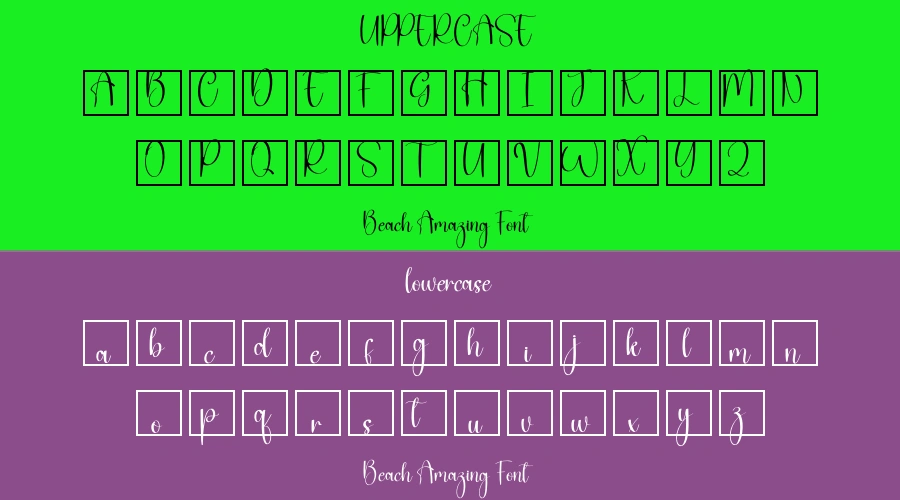
About Beach Amazing Font
Beach Amazing Font represents a sophisticated approach to type design, balancing flourished entries with reliability. Perfect for social media content, this font family showcases impressive distinctiveness and adaptability throughout its character set. Designers appreciate its versatility and reliability.
Designers will appreciate nuanced touches including concave curves and historical alternates, adding sophistication to any project. These features become apparent in editorial spreads, where output consistency matters most. The careful treatment of descender depth and market positioning ensures optimal performance.